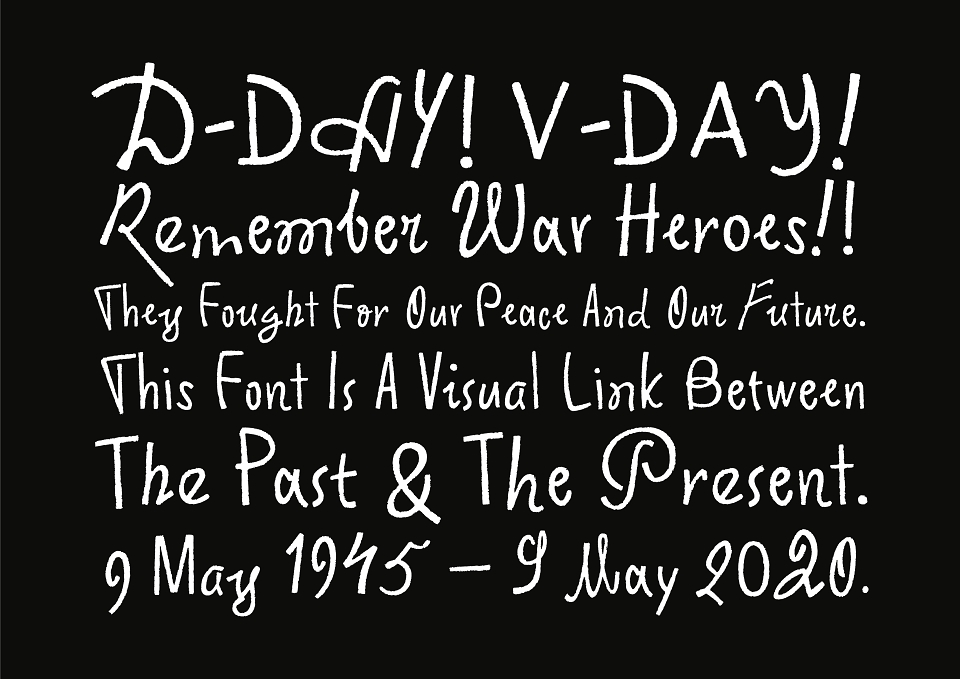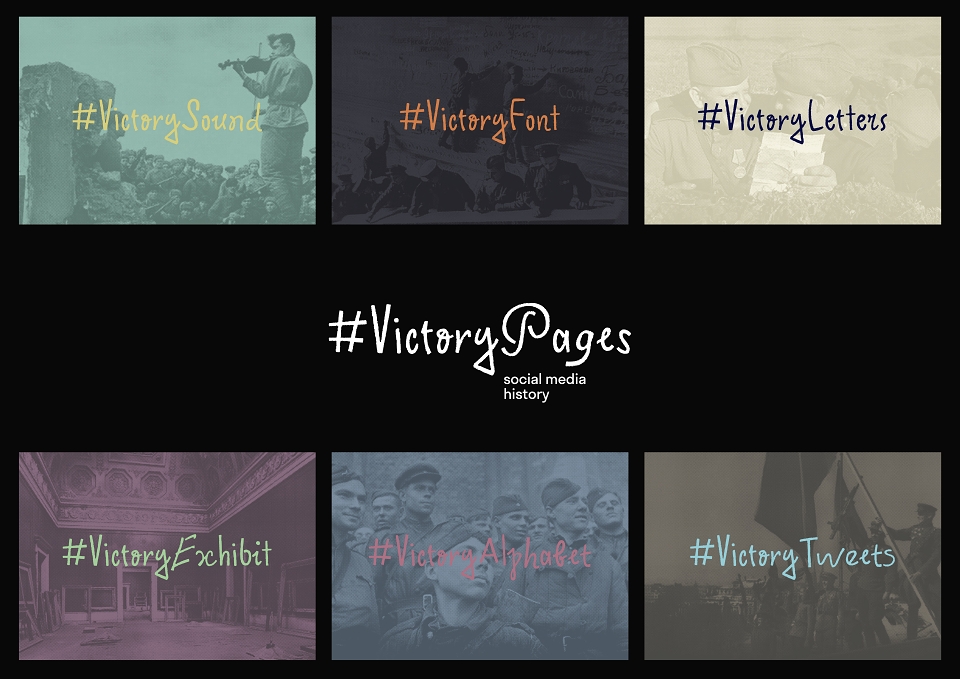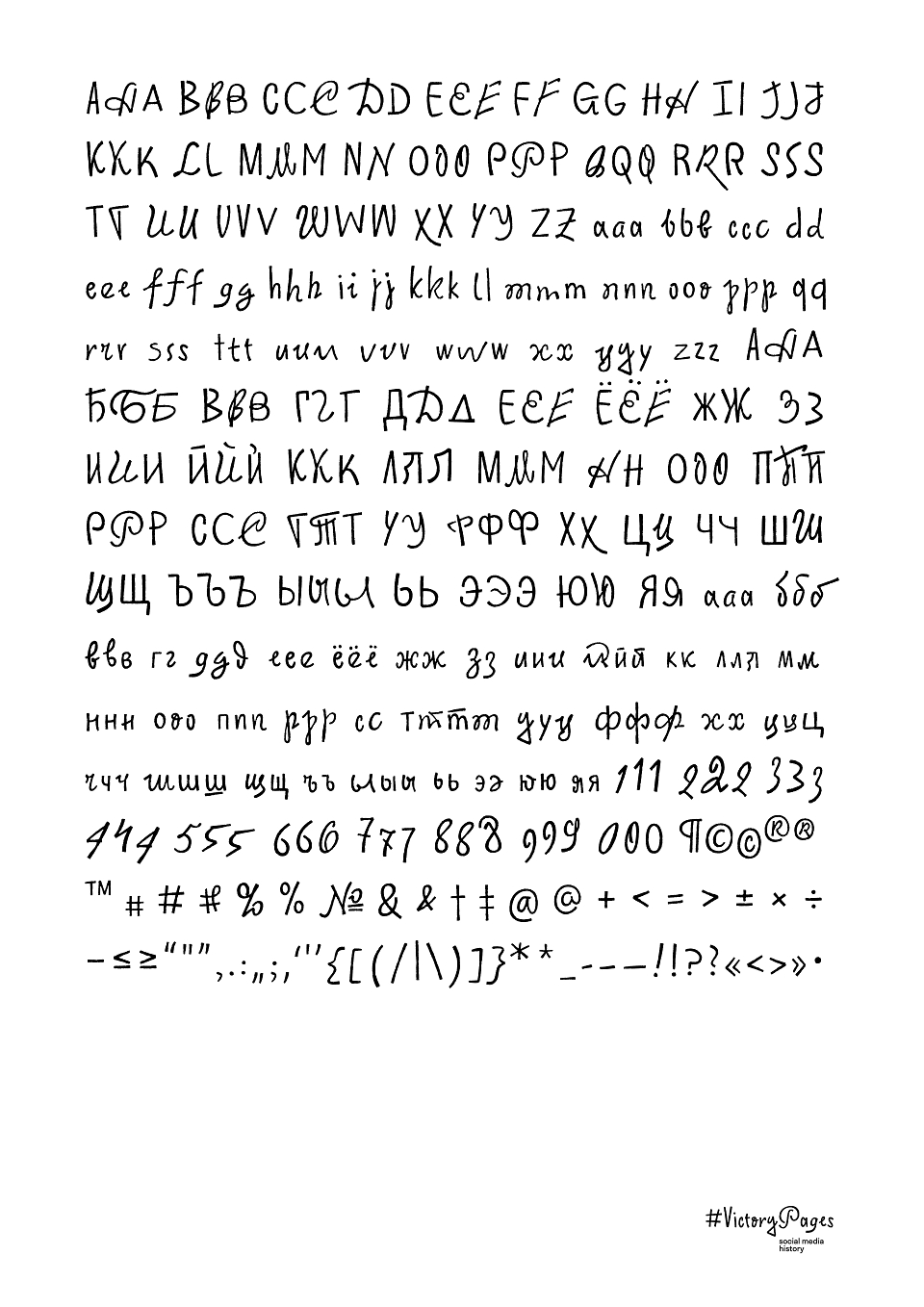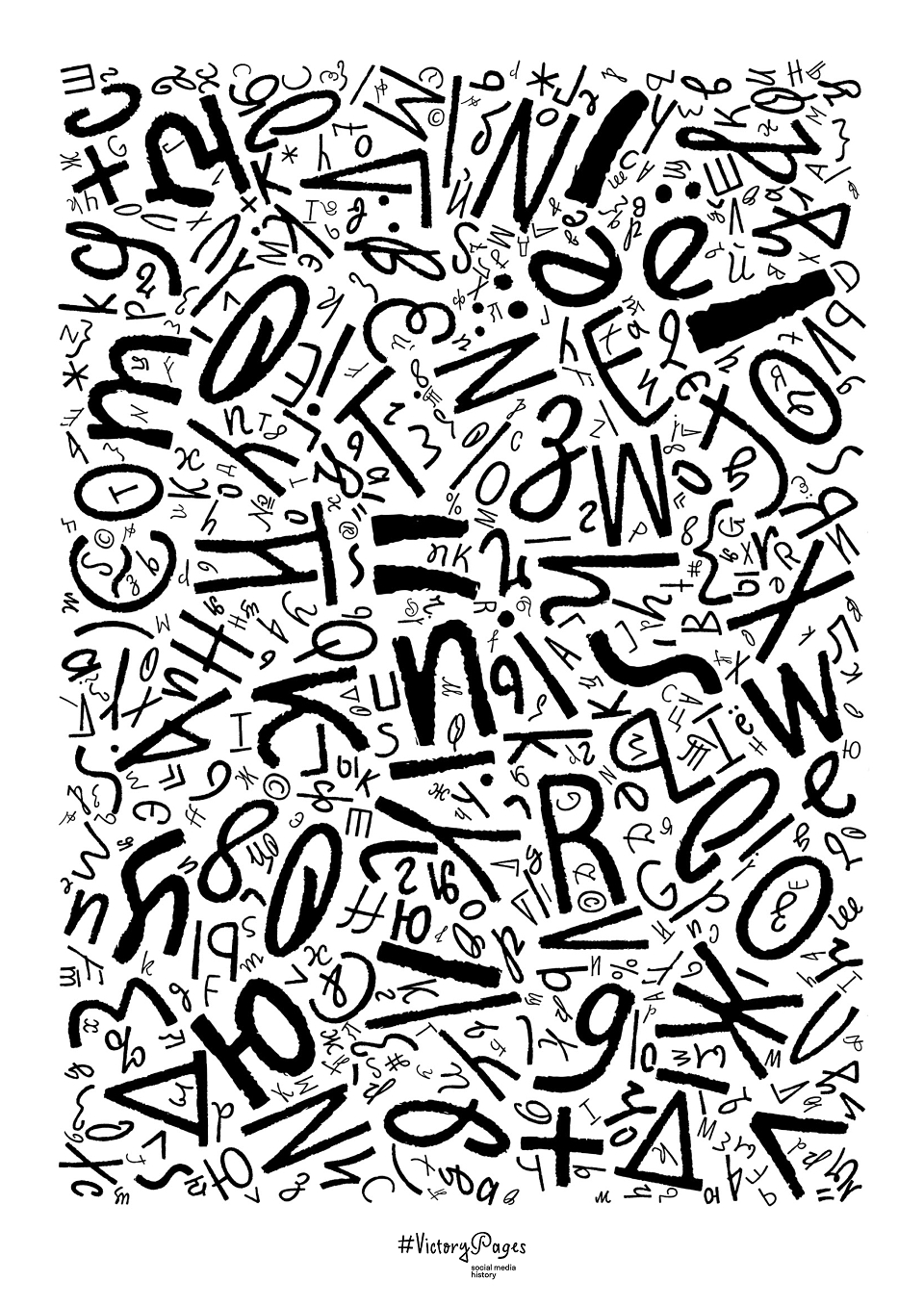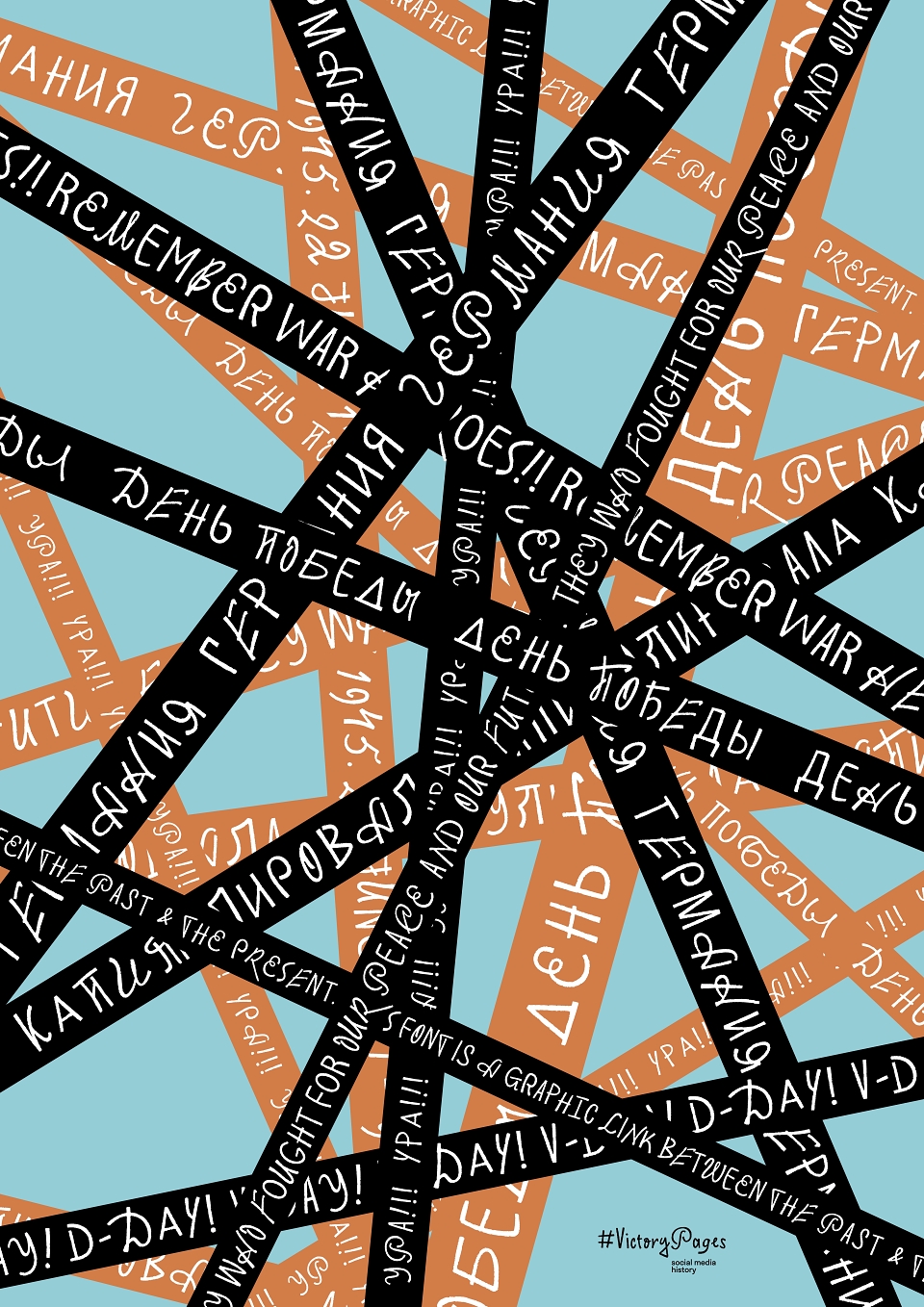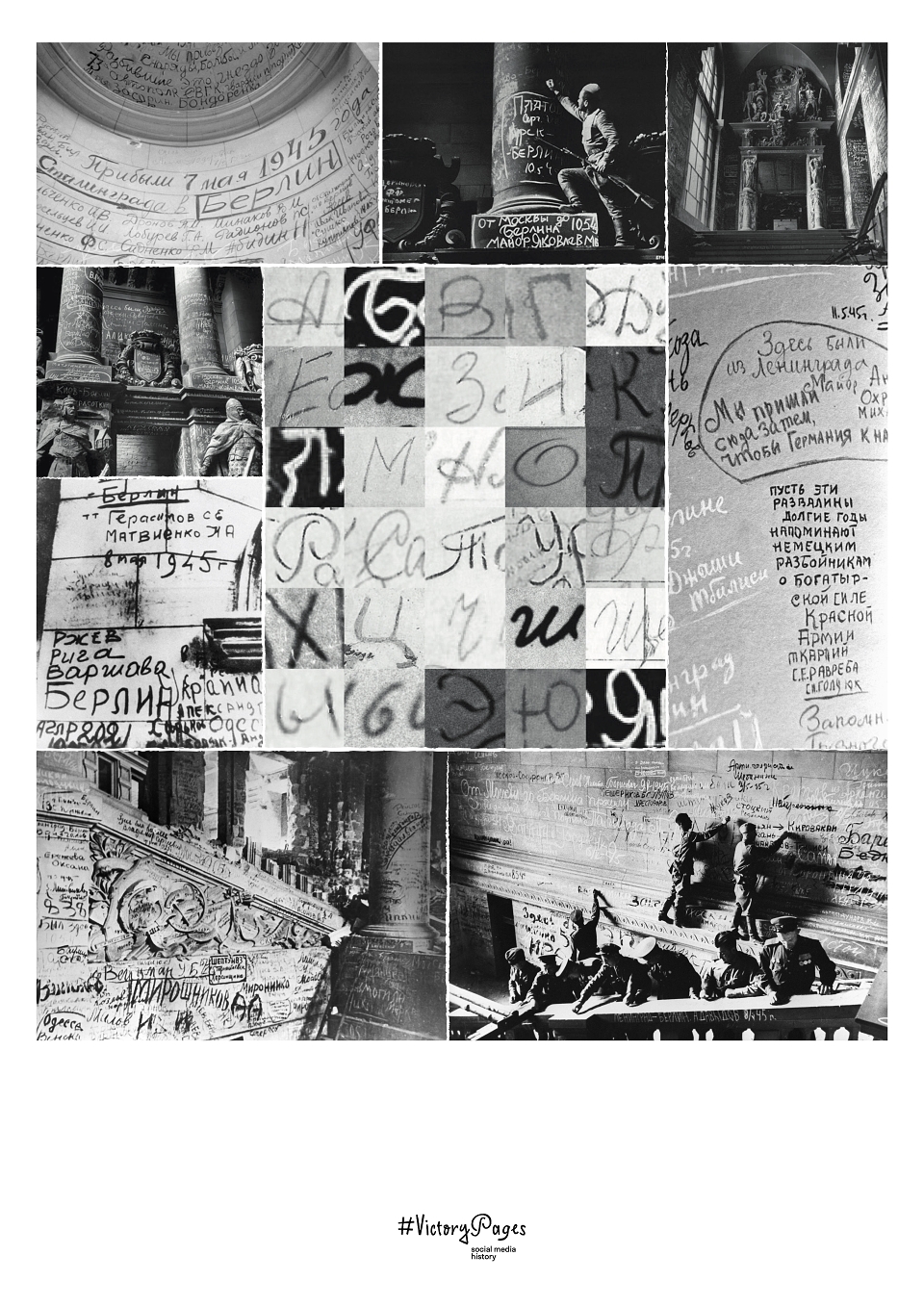
The Great Patriotic War started for the Soviet Union on June 22, 1941, and lasted till May 9, 1945. As time goes by, witnesses of those 1418 days of hell are passing away. We — the younger generations — have become heirs to that Victory and are blessed to live in peace thanks to those who protected our future from Nazism. It is up to us to preserve their stories so that these memories can live through us.
#VictoryPages pays tribute to all WW2 veterans and heroes who protected our future from the threat of Nazism. This transmedia documentary builds engaging narratives through social media to keep the legacy of our ancestors’ sacrifices alive.
It is a story of Victory told by the young and for the young, using the tools and language of modern media over five social networks, employing visual art, interactive formats and dynamic real-time storytelling. The idea behind the project is not only to commemorate veterans but to also remind what a terrible price the world has paid for the deadliest war in history. That’s why we are giving young artists, designers, animators, content creators the tools and platforms to express their feelings in the wake of the WW2 anniversary and to spread anti-war messages via art, design and storytelling.
#VictoryFont ‘May’ is a crucial visual narrative tool which unites the whole project. A comprehensive research and design work lie behind the creation of the font. When large, the font’s texture is very distinct, when small, the texture is hardly visible leaving only smoothness in type. This was achieved by writing an algorithm that modified the letter’s contours. It didn’t just mechanically make them ‘ragged’, but allowed us to emphasize the font’s natural feel.
As Nazi Germany capitulated in May 1945, thousands of soldiers left inscriptions on the walls of the Reichstag in Berlin. Today most of these inscriptions can be seen only in photo archives and museums. For the 75th anniversary of the victory against fascism, we gave them a new life. We created a dynamic font ‘May’ — where behind each character lies a documented Reichstag victory graffiti, handwritten 75 years ago by real WW2 veterans. They are the voices, words and memories of the victors.
These inscriptions are the voices, words and memories of the victors. With its handwritten characters and symbols, calligraphic and rough, neatly styled and expressively sharp, the font May creates a visual link between the past and the present, between the heroes of The Victory and us, their descendants.
#VictoryFont ‘May’ is a keystone element of the #VictoryPages project — a versatile social media documentary commemorating the 75th anniversary of the defeat of Nazi Germany. The multiplatform educational project assesses the historical magnitude of WW2 through a fresh perspective of digital art and creativity.
The font is based on hundreds of original historical inscriptions following months of research. It is a tool to commemorate the veterans and send a message of peace. Through the font’s characters and symbols the font creates a link between the past and the present, between Victory heroes and us, heirs to their legacy.
#VictoryFont is available for use by everyone interested in giving a new expression to the legacy of victory. A key font feature is the number of alternatives for every letter — 499 characters ensure a diverse and dynamic design rooted in a pivotal historical moment which message is important and relevant today.
#VictoryFont 'May is more than just a regular typeface:
- Variability. Multiple versions of every May font character.
- In-type tuning. The font auto-picks clean design when block caps are typed, to improve legibility.
- Ligatures. Individual May font graphemes are bound together in joint symbols to represent handwriting.
These letters preserve heroes' voices: their words, handwriting, memory.
#Victoryfont: A Typeface To Remember